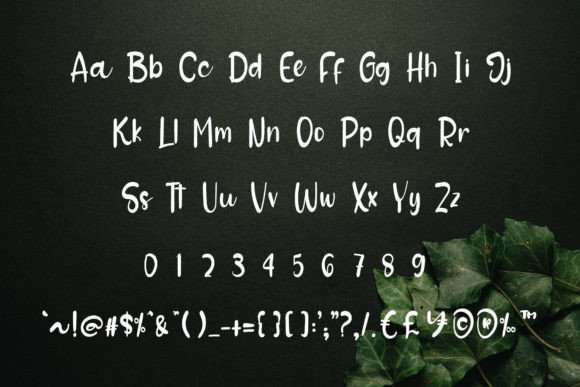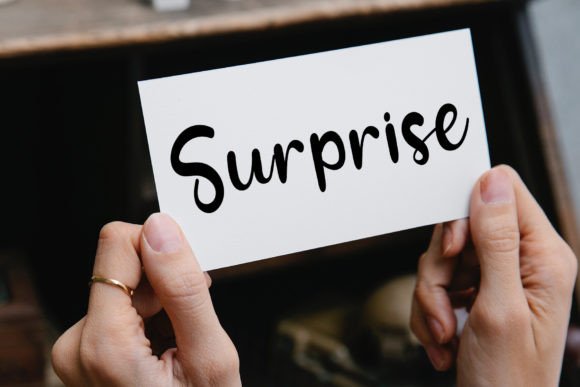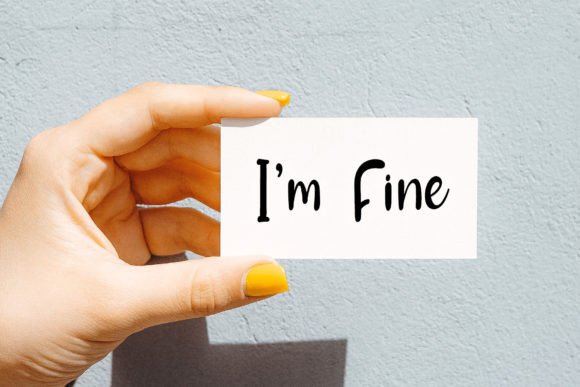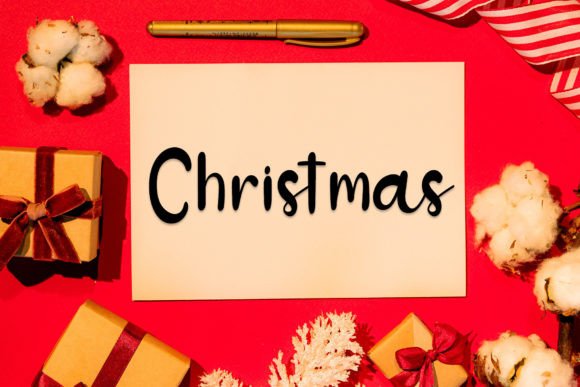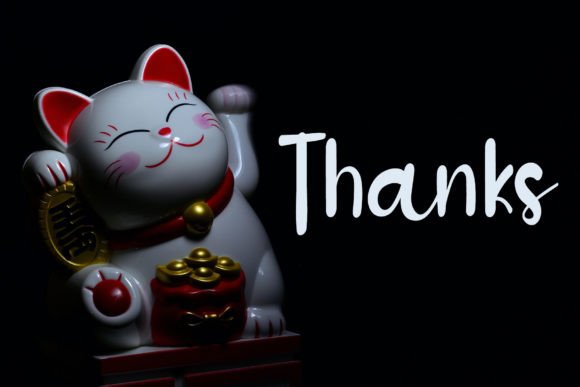
Better Before Font: Elevate Your Designs with Elegance and Style
In the world of typography, a font can make or break a design. When it comes to creating visually stunning projects, the right font can add a touch of sophistication and elegance. Introducing Better Before Font, a neat and stylish handwritten font that is perfect for designers and crafters looking to elevate their designs. Crafted with a touch of elegance, Better Before Font is a distinct and timeless style that will make your projects stand out.
What Makes Better Before Font Special?
Better Before Font is a unique and stylish handwritten font that boasts a range of characteristics that make it perfect for a wide variety of design projects. Here are just a few reasons why Better Before Font should be your go-to font:
- Elegant and Refined: Better Before Font is crafted with a touch of elegance, making it perfect for designers and crafters who want to add a level of sophistication to their projects.
- Distinct and Timeless Style: The font’s unique style is both modern and timeless, ensuring that your designs will stand the test of time.
- Versatile: Better Before Font is perfect for a wide range of design projects, from templates and wedding invitation cards to crafts, birthday cards, logos, nameplates, and more.
- Handwritten with Love: The font is carefully crafted with a handwritten touch, giving it a personal and authentic feel.
Use Better Before Font for Your Favorite Projects
Better Before Font is incredibly versatile, making it perfect for a wide range of design projects. Here are just a few ideas to get you started:
- Wedding Invitation Cards: Create beautiful and elegant wedding invitation cards that set the tone for the big day.
- Birthday Cards: Design stunning birthday cards that are sure to impress.
- Logos and Branding: Use Better Before Font to create unique and memorable logos and branding materials.
- Templates: Create professional-looking templates for presentations, reports, and more.
- Crafts: Add a touch of elegance to your crafts, such as scrapbooking, card making, and more.
- Nameplates: Design beautiful nameplates for events, conferences, and more.
Why Designers and Crafters Love Better Before Font
Better Before Font has quickly become a favorite among designers and crafters, and for good reason. Here are just a few reasons why:
- Easy to Read: The font is clear and easy to read, making it perfect for body text and headlines.
- Highly Legible: Better Before Font is designed to be highly legible, even at small sizes.
- Customizable: The font is highly customizable, allowing you to adjust the size, color, and style to suit your needs.
- Unique and Creative: Better Before Font is a unique and creative font that will add a touch of personality to your designs.
Get Ready to Fall in Love with Better Before Font
If you’re looking for a font that will elevate your designs and add a touch of elegance, look no further than Better Before Font. With its unique and timeless style, versatility, and ease of use, Better Before Font is sure to become your go-to font for all your design projects. So why wait? Fall in love with Better Before Font today and take your designs to the next level.
In conclusion, Better Before Font is a must-have for designers and crafters looking to add a touch of elegance and sophistication to their projects. With its unique style, versatility, and ease of use, Better Before Font is the perfect font for anyone looking to create stunning designs that will stand out from the crowd.